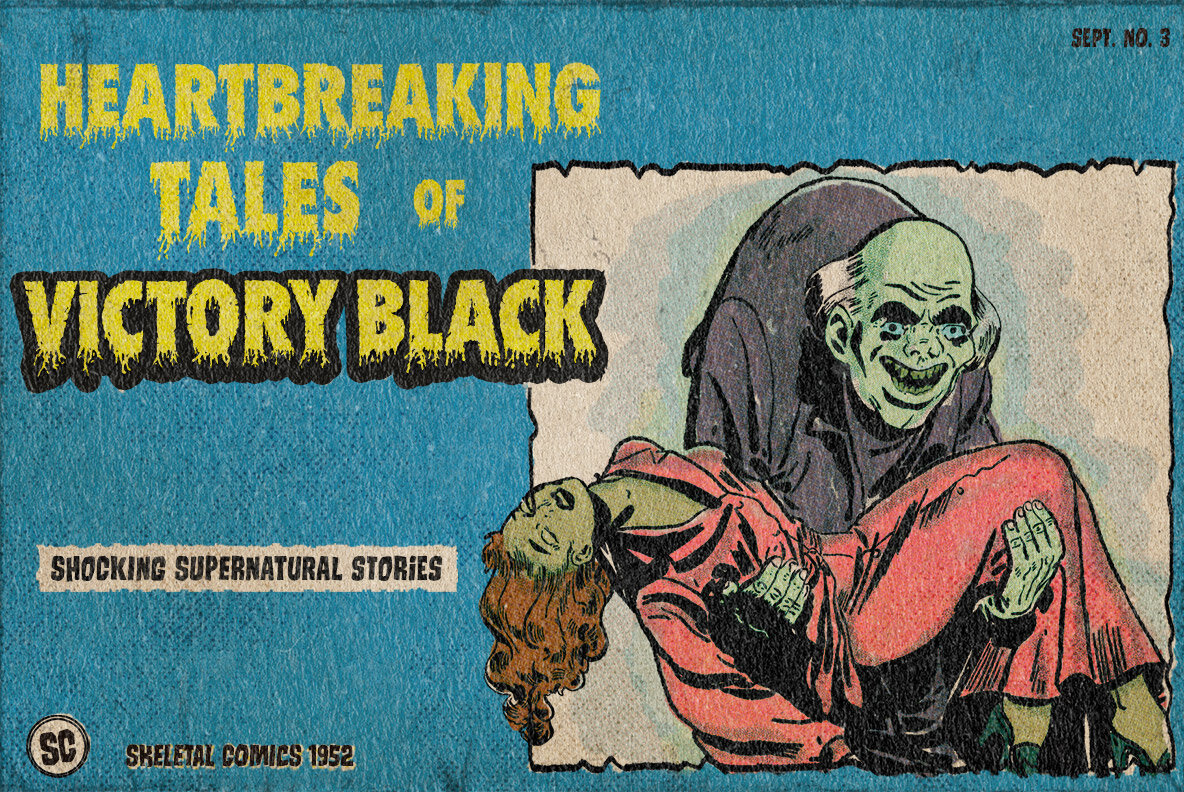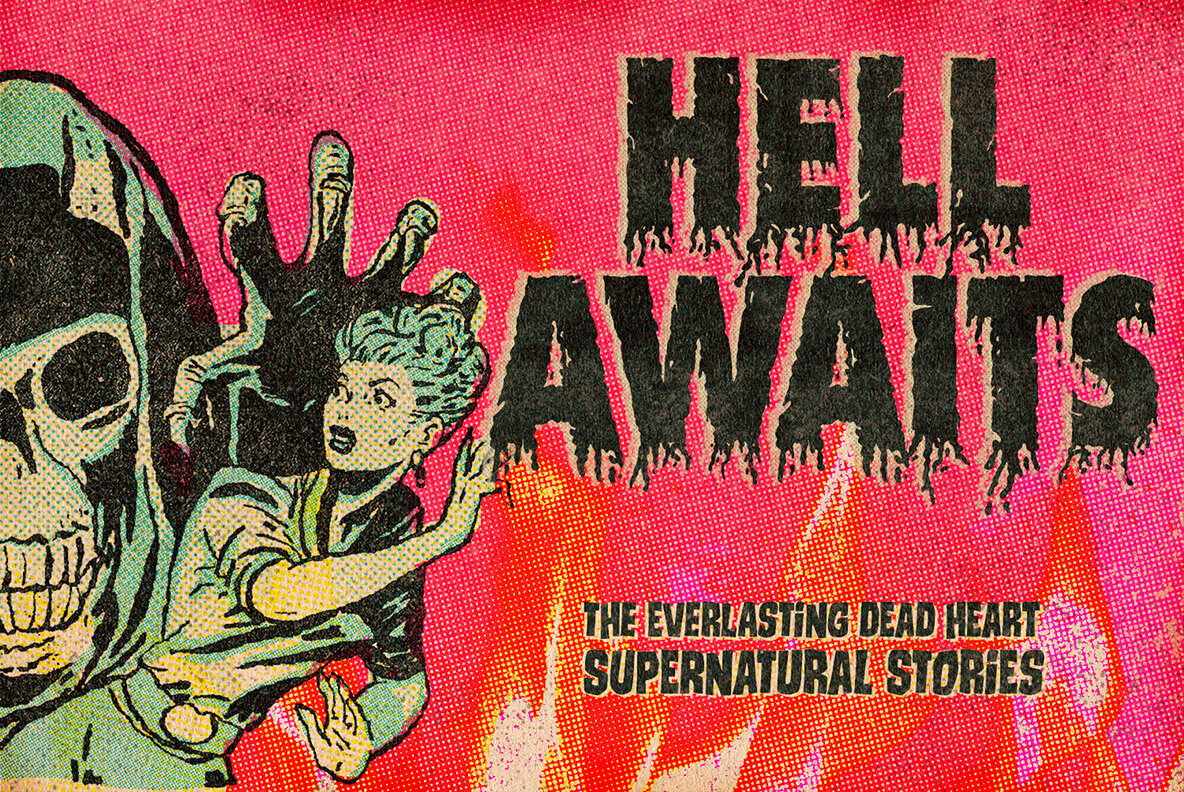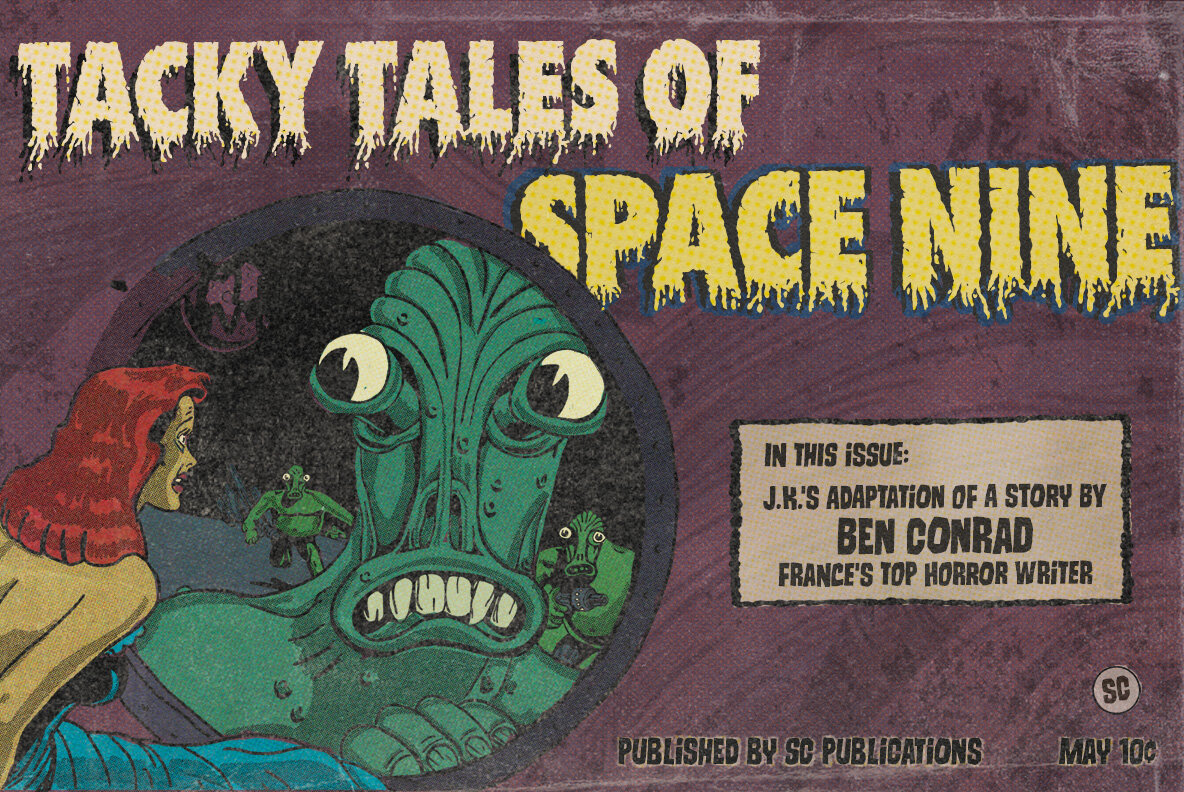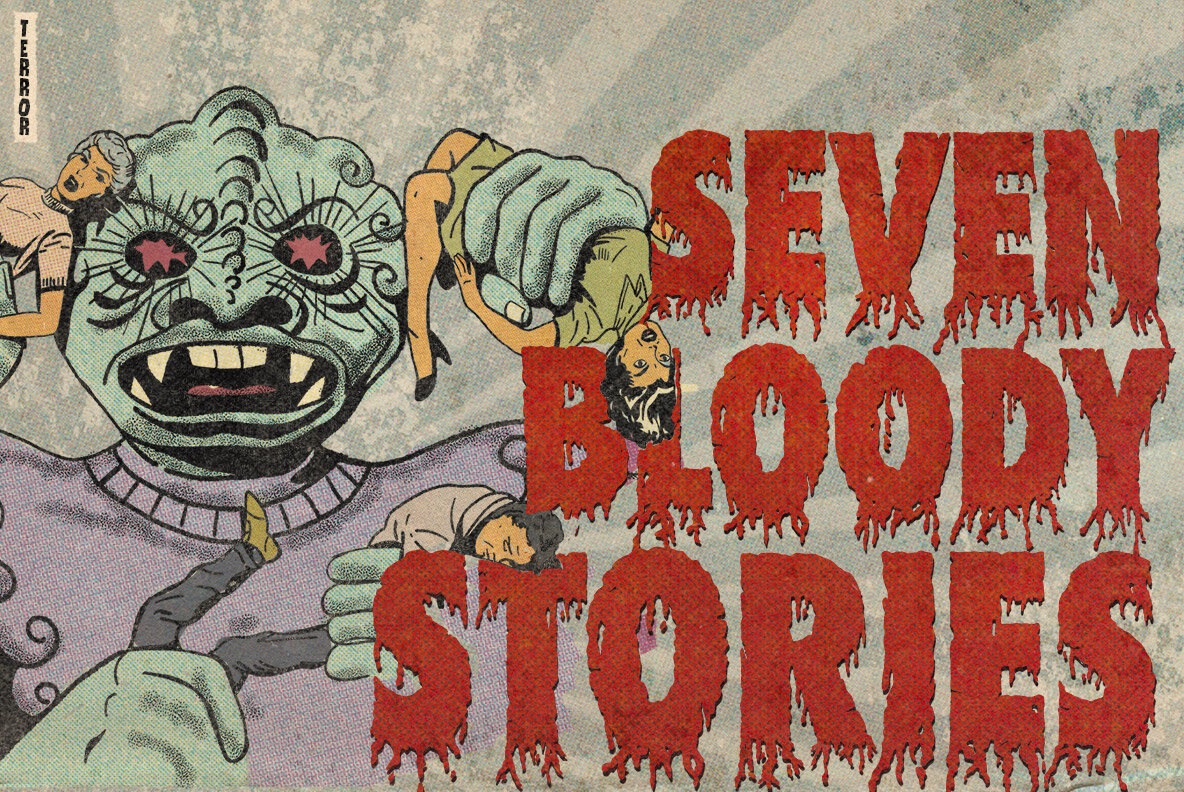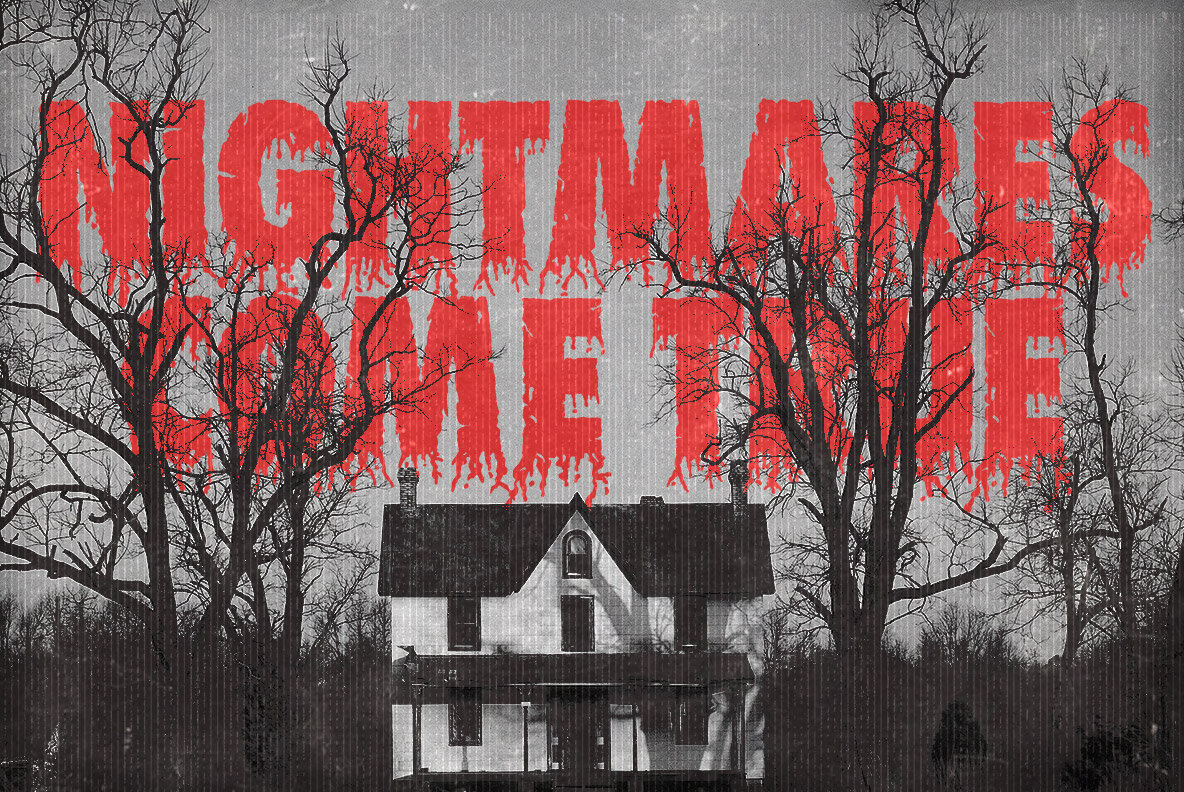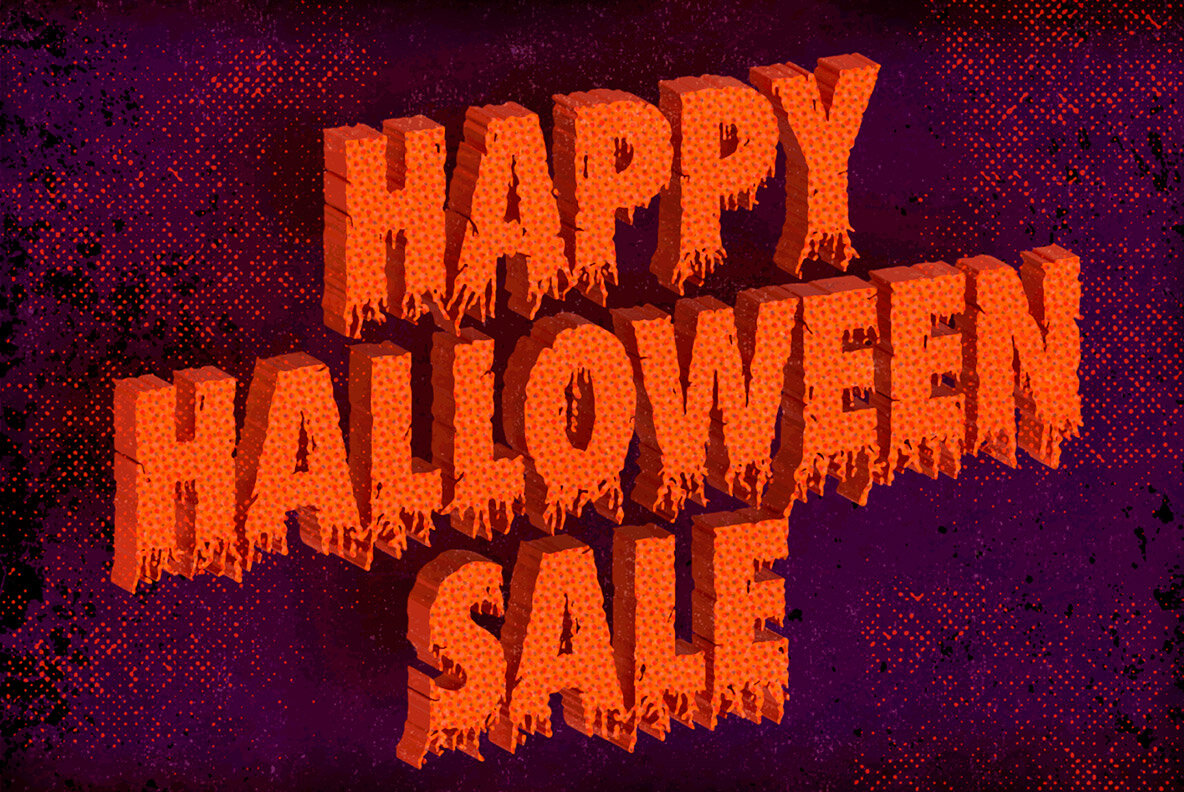
True Gore Font
True Gore is an all-caps display font with two bloody options for each letter and numeral. A horrific pick for your dreadful designs, you bet. Just perfect for book and album covers, packaging, t-shirts, apparel, Halloween imagery, anything where you want that horror, disgusting look. Give it a go!